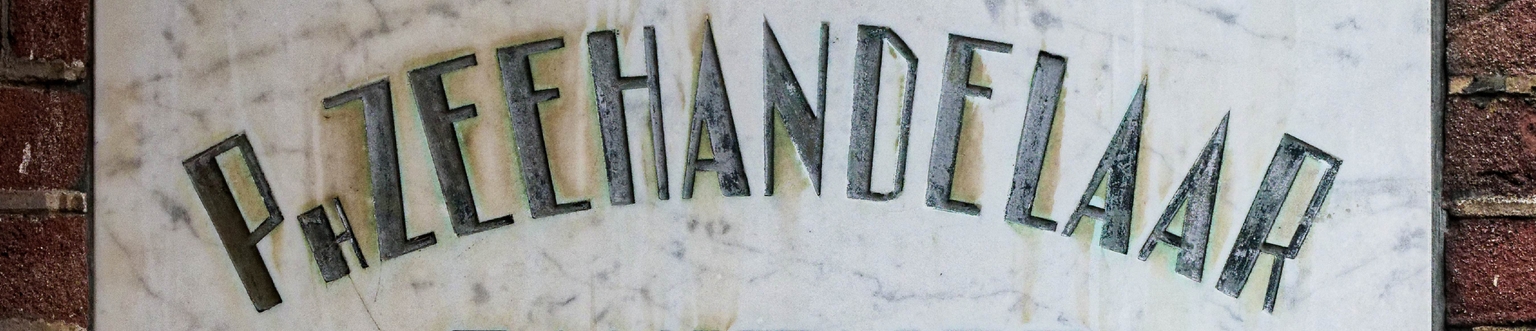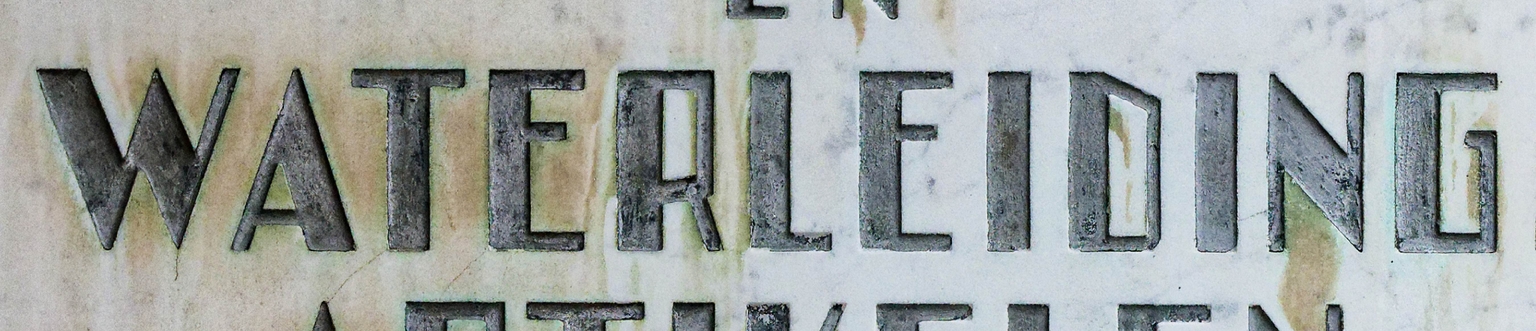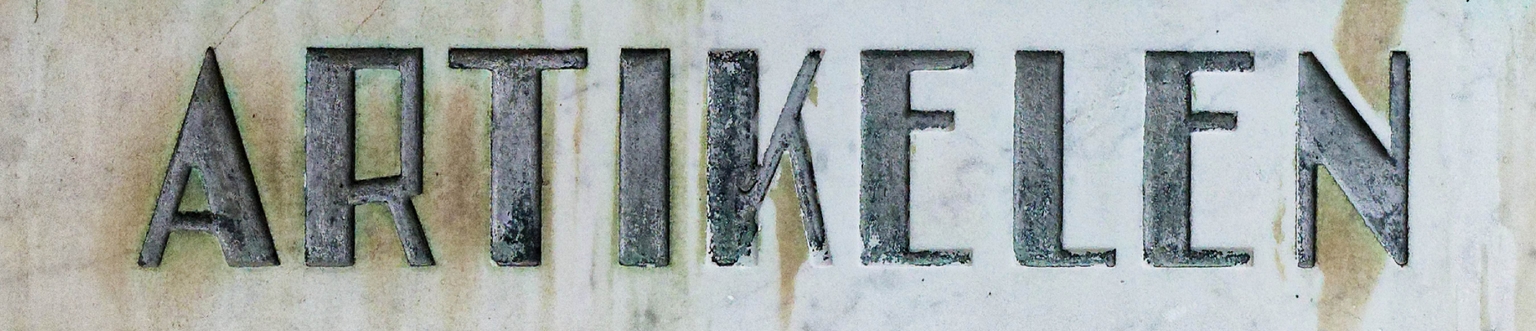
Minicus
Minicus is a compressed modular typeface designed by Paula Mastrangelo and inspired by the lettering on a plaque at Tweede Jan Steenstraat 113 in Amsterdam, the Netherlands. The plaque marks the former business of Minicus (Ph.) Zeehandelaar (1883–1943), an Amsterdam Jewish merchant who was murdered during the Holocaust. Modest in scale yet carefully constructed, the original inscription reflects a restrained approach to lettering shaped by functional requirements and its architectural setting.
Mastrangelo analyzed the compact proportions and modular logic of the plaque’s letterforms and translated them into a contemporary digital typeface. In the process, proportions and spacing were refined, inconsistencies resolved, and the character set expanded, while preserving the compressed structure and quiet rhythm of the source. The result is a font that balances historical reference with present-day usability.
Minicus is well suited for posters, editorial design, signage, websites, museum communications, and cultural or educational projects that benefit from condensed forms and a clear, constructed aesthetic. At the same time, it functions as a subtle typographic reminder of a personal history embedded in Amsterdam’s urban fabric, connecting everyday lettering to a broader historical narrative.